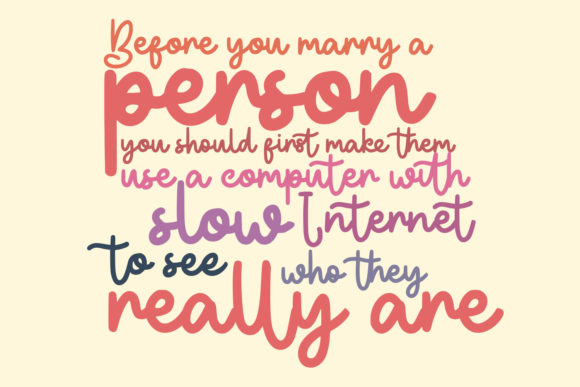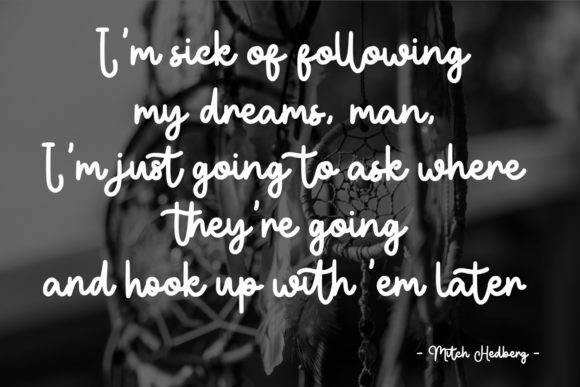
Boy Flare Font
db-ku.com - Script & Handwritten -- Boy Flare is a cursive script font. It will add a luxury spark to any design project that you wish to create! This font is PUA encoded which means you can access all glyphs and swashes with ease!